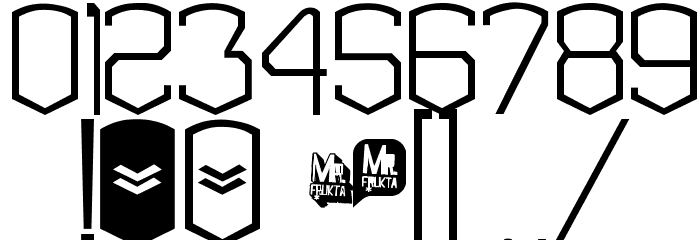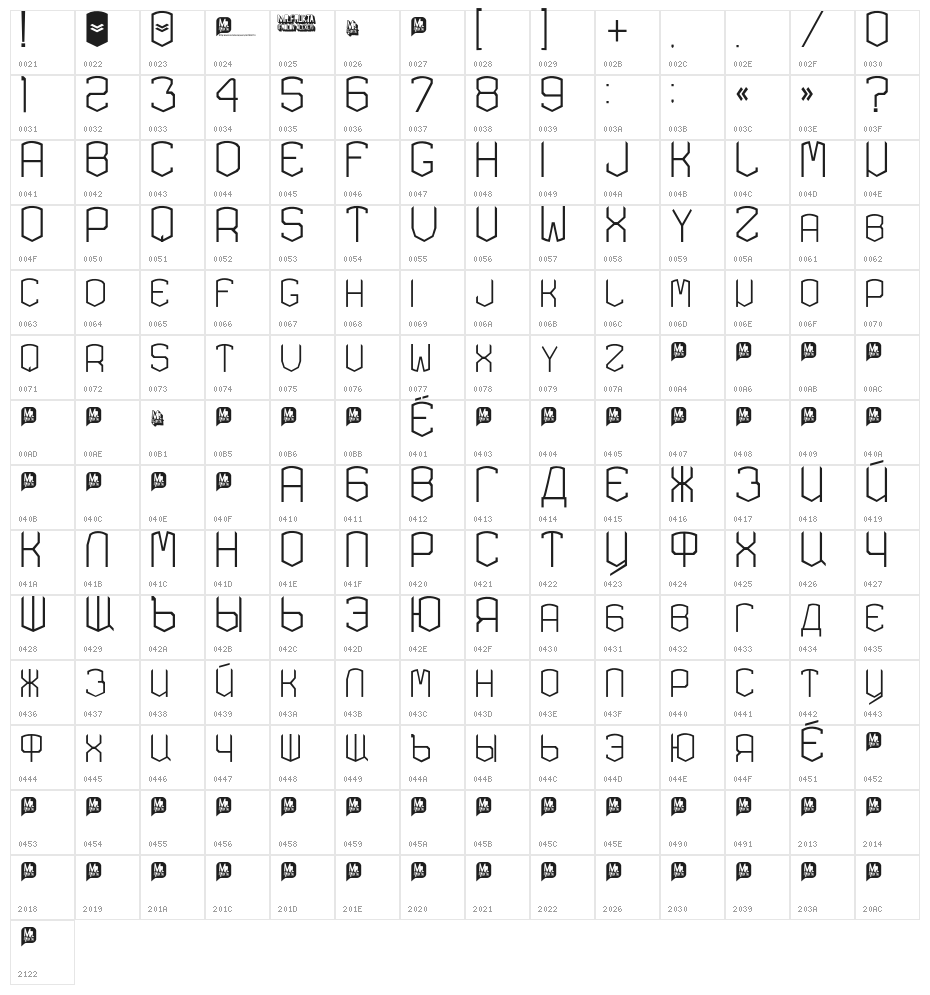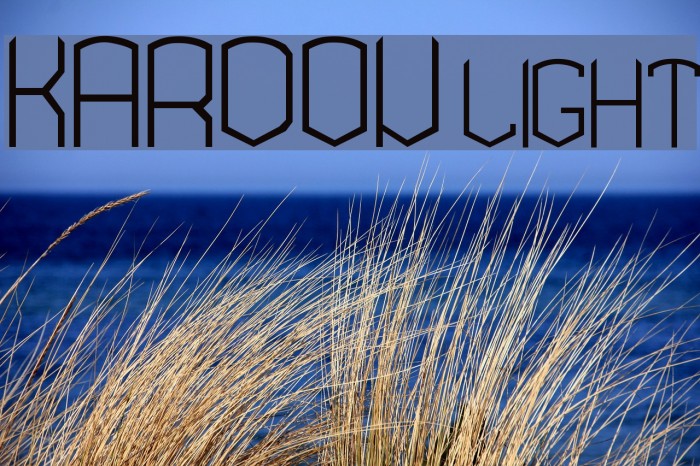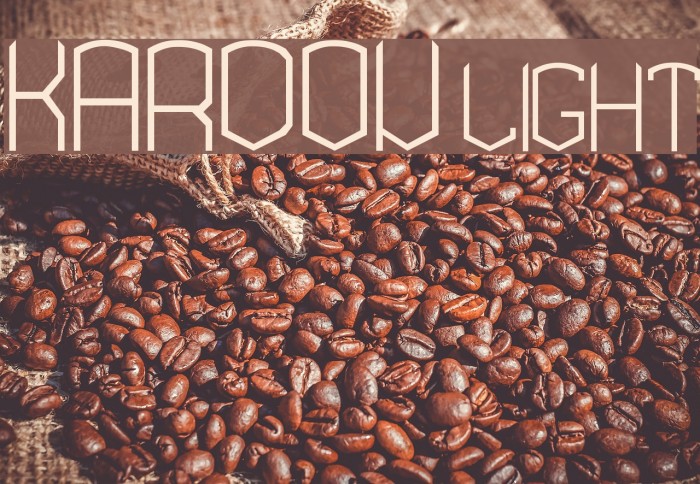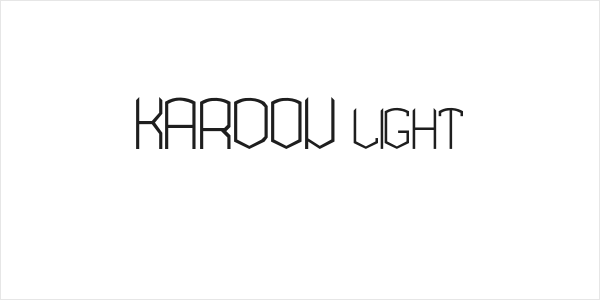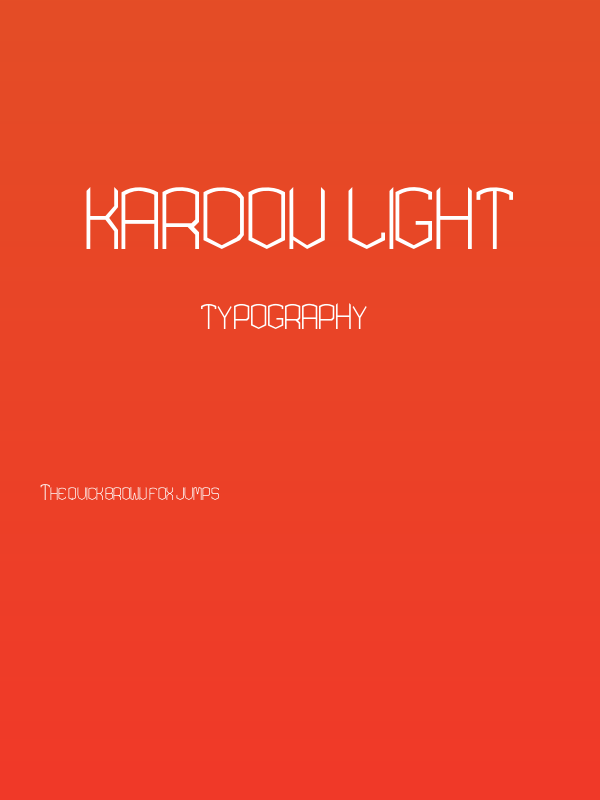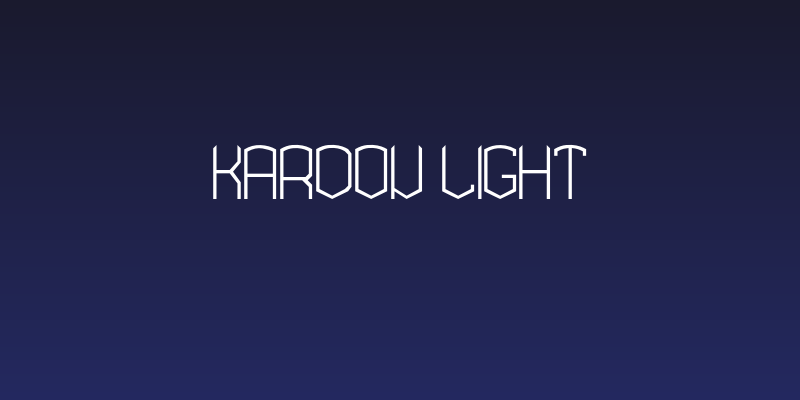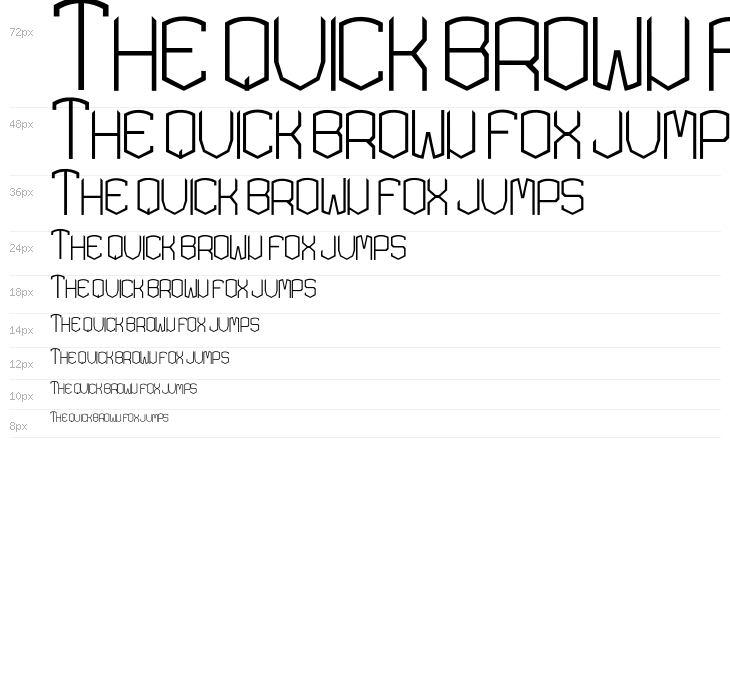
KARDON- light Font
KARDON- light Description
This font features a geometric and angular design, characterized by sharp edges and a modern aesthetic. The uppercase and lowercase letters maintain a consistent height, creating a uniform appearance. The numerals and special characters follow the same angular style, enhancing the cohesive look. The font's structure is clean and minimalistic, making it suitable for contemporary design projects. Its unique style stands out, with a futuristic and tech-inspired vibe, perfect for creative and innovative applications.
| Use Case | Logos, Headlines, Digital Interfaces |
| Proposed Projects | Ideal for tech branding, digital interfaces, modern posters, and innovative product packaging. |